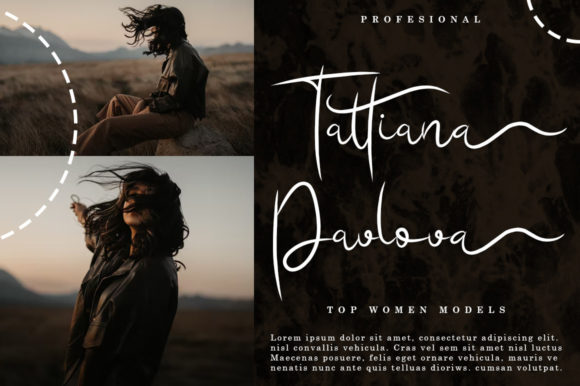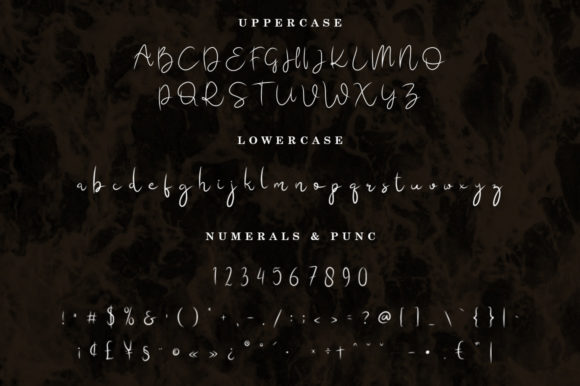
Humblezing is a delicate and fashionable script font.
It is perfect for any branding project such as logos, t-shirt printing, creative products, and more This font is PUA encoded which means you can access all of the glyphs and swashes with ease.
Humblezing Font offers exceptional quality and versatility, making it a valuable addition to your design toolkit. Whether you’re creating for personal projects or commercial use, Humblezing Font delivers professional results.